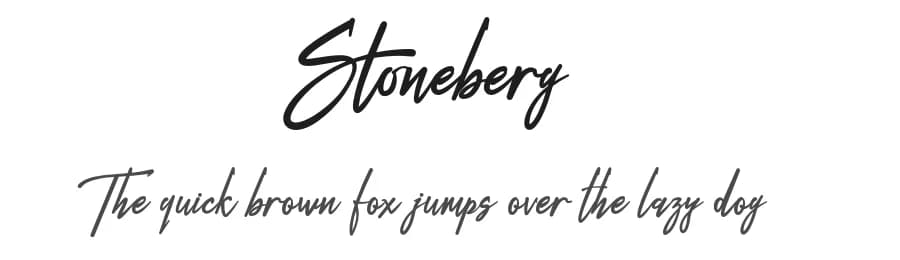
About Stoneberg Font
Stoneberg Specifications
| Font Family | Stoneberg |
| Full Name | Stoneberg-Regular |
| Glyph Count | 310 glyphs |
| PostScript Name | Stoneberg-Regular |
| Designer | inst.ink!type |
Stoneberg supports 238 languages.
Stoneberg Font is a script font that shines as a display or heading face. Pair it with a clean sans-serif or serif font for body text β the contrast creates a clear hierarchy while the two styles stay balanced and easy to read.
Stoneberg Font